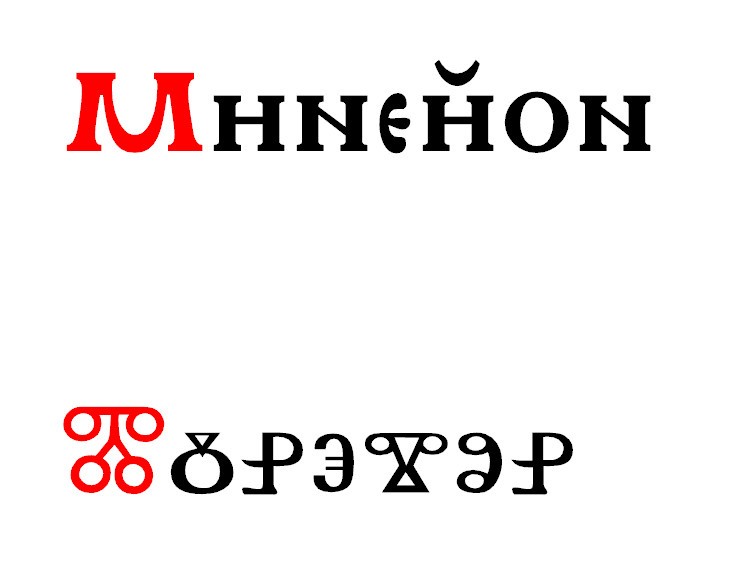
Menaion Unicode Font
Menaion Unicode Font is perfect for Orthodox liturgical materials, Byzantine church publishing, ecclesiastical calendar design, religious manuscript reproduction, Orthodox icon workshop communications, sacred music publications, monastic community materials, and reverent religious advertising. This sacred typeface works magnificently in both digital applications and print media where Orthodox tradition and liturgical authenticity are fundamental design requirements.
What makes Menaion Unicode Font so exciting is its profound interpretation of Byzantine liturgical tradition through sacred letterforms that seem inscribed with the same devotional spirit and ecclesiastical reverence that has preserved Orthodox Christian worship for centuries. The font features holy characters with liturgical proportions, sacred curves, and traditional details that evoke the timeless beauty of monastic scriptoriums and the spiritual devotion of Orthodox religious texts. Its reverent personality and Byzantine heritage make it ideal for Orthodox institutions seeking to maintain liturgical authenticity while serving congregations who value traditional worship practices and the preservation of Orthodox Christian culture.
The Menaion Unicode Font family includes comprehensive Unicode support for Orthodox liturgical texts with different sacred intensities, along with ecclesiastical alternates and Byzantine ornamental elements. Each style maintains the typeface's holy character while offering extensive character sets including Church Slavonic letters, Greek liturgical text, traditional numerals, sacred punctuation marks, and special symbols designed to enhance Orthodox communications and religious branding efforts across various liturgical contexts.
This remarkable typeface represents the perfect preservation of Byzantine tradition and contemporary digital functionality for Orthodox religious and cultural institutions. Whether you're developing Orthodox parish identities, creating liturgical service materials, or designing religious educational publications, Menaion Unicode Font Free Download provides the sacred authenticity and versatility needed to serve Orthodox communities worldwide. The font's liturgical heritage makes it particularly effective for Orthodox churches, religious publishers, monastic communities, and institutions preserving the rich traditions of Eastern Christian worship and Byzantine manuscript culture.
The meticulously preserved liturgical construction and optimized sacred performance in Menaion Unicode Font ensure both ecclesiastical authenticity and clear communication across all Orthodox applications. Its reverent presence makes it perfect for religious branding, liturgical educational materials, and sacred communications where its full Byzantine character can create meaningful spiritual connections with Orthodox faithful seeking authentic worship experiences and the preservation of their sacred religious heritage.